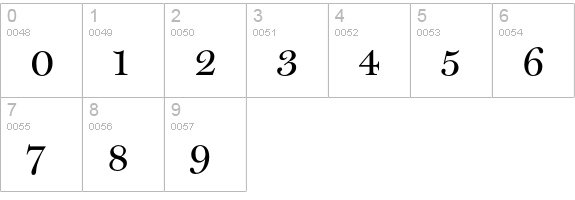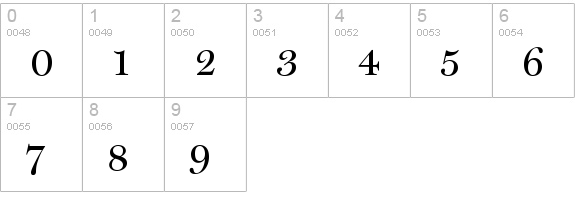
Miller-DisplayRoman Font Details
Miller-DisplayRoman is a timeless and elegant font that exudes sophistication and class. Its clean lines and subtle curves make it a versatile choice for a wide range of design projects. Whether you're creating a sleek logo, designing a stylish invitation, or crafting a professional presentation, Miller-DisplayRoman is sure to elevate your work to the next level. The best part? Miller-DisplayRoman is available for free download at FontsMarket.com. This means you can access this high-quality font without any cost, making it a valuable addition to your design toolkit. Don't miss out on the opportunity to enhance your projects with the beauty and style of Miller-DisplayRoman - download it today and see the difference it can make!